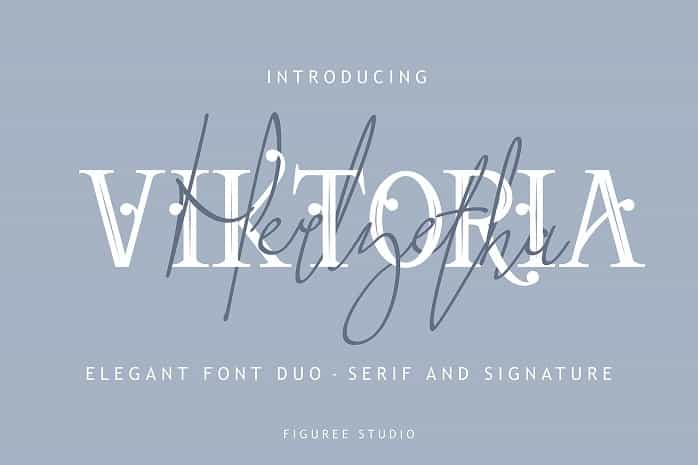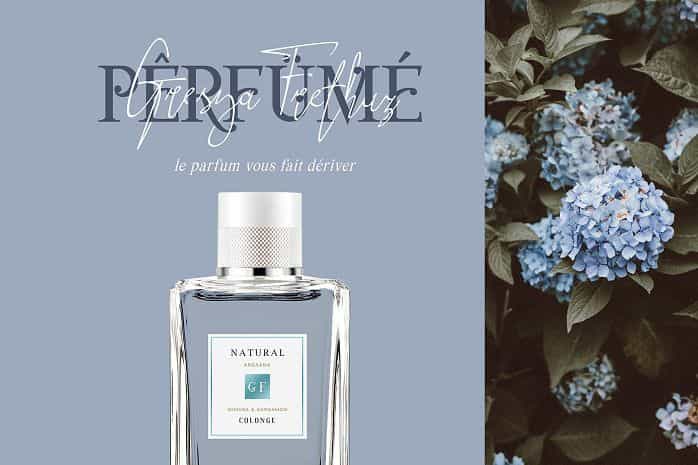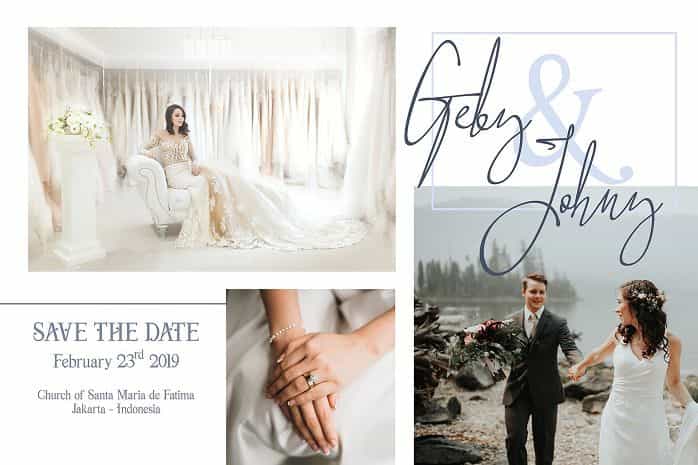
Viktoria Elegant Font Duo is a stunning classic font duo that can be used for beautiful quotes, logos, posters, website design, wedding invitations and many more! The Viktoria Serif and the Viktoria Signature when combined together will give you an amazing look,and do not forget to add swash then your project will become even more special.